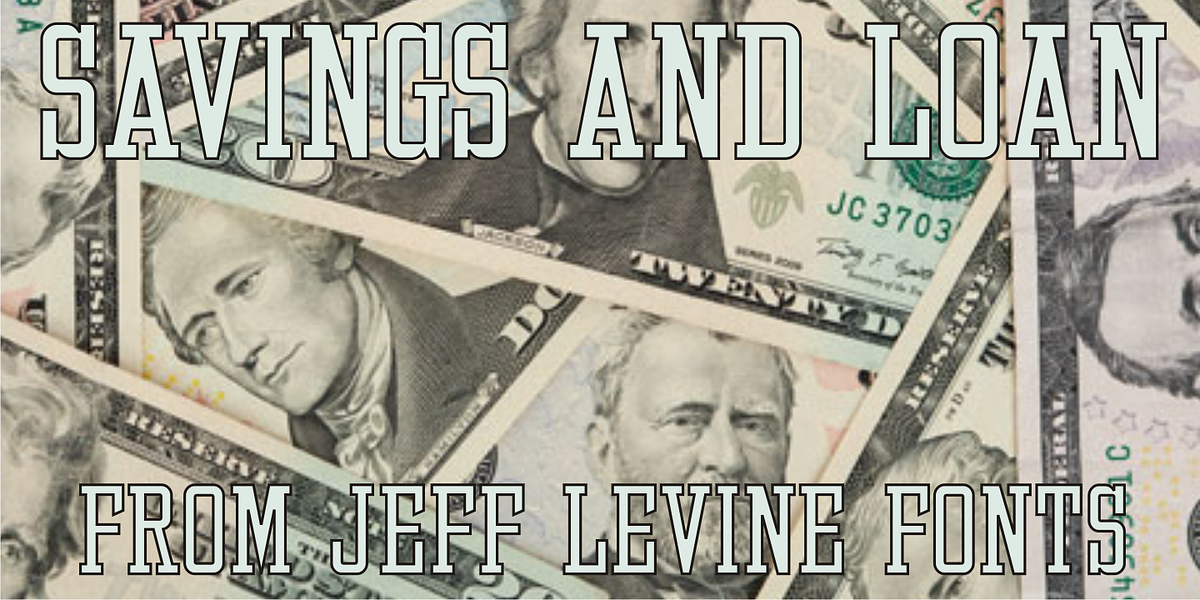
Savings and Loan JNL
Savings and Loan JNL is a condensed slab serif with a square look to the letterforms. Itís perfect for titling applications, and exudes strength, dignity and legibility.